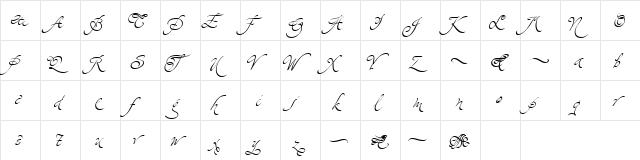
ChristophsQuillSwashITC Regular
Design Context for ChristophsQuillSwashITC Typeface
ChristophsQuillSwashITC brings a calligraphic fluidity to the page — its connecting strokes and expressive curves give it an unmistakably human quality.
Font Pairing: Combine ChristophsQuillSwashITC with a simple geometric sans for maximum contrast — the tension between flowing curves and clean structure is a classic typographic pairing.
Pro Tip: Use ChristophsQuillSwashITC for short runs of text — names, titles, or taglines. Extended body copy in script faces tires the eye quickly.